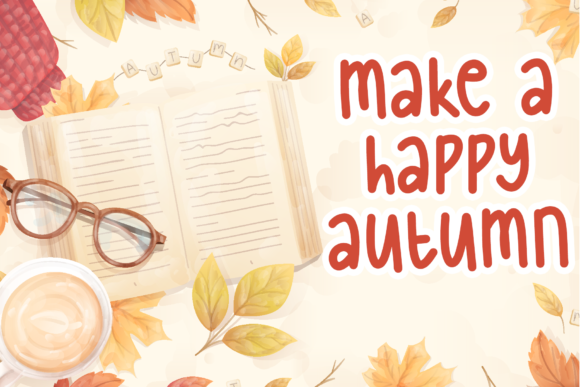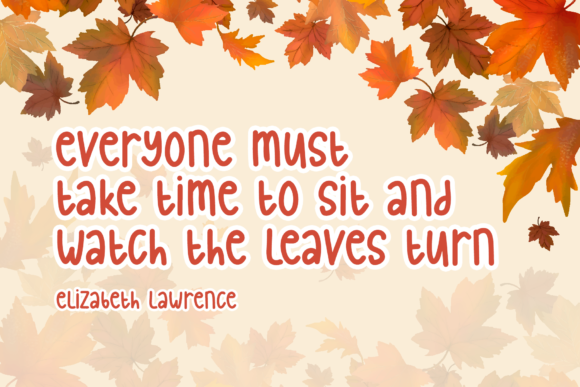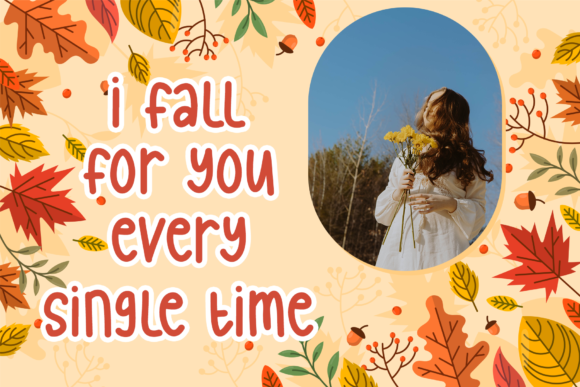
About Autumn Leaves Font
Autumn Leaves is a simple, clean, and casual handwritten font that adds a beautiful and refreshing look to your designs. This font is crafted with a focus on simplicity and clarity, making it perfect for a wide range of design projects. Whether you’re working on branding materials, packaging, invitations, social media graphics, or any other creative endeavor, Autumn Leaves brings a sense of natural beauty and effortless style. Its clean lines and casual vibe create a relaxed and inviting atmosphere. Embrace this font and let it add a touch of freshness and elegance to your designs, capturing the essence of the autumn season. Let the simplicity and charm of Autumn Leaves enhance your creations and leave a lasting impression on your audience.